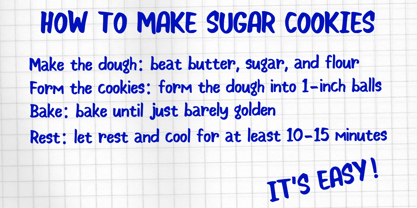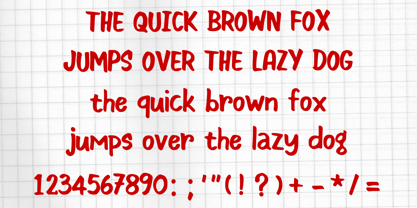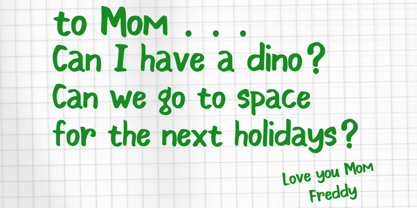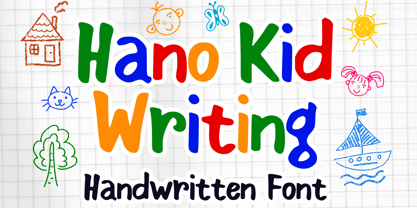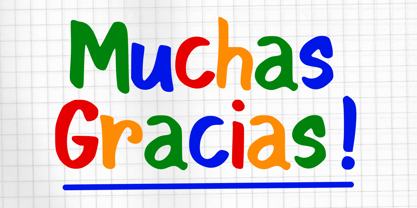
Hano Kid Writing
by Mvmet
The Hano Kid Writing Font Family was designed by Gabriel Valentinus and published by Mvmet. Hano Kid Writing contains 1 styles. More about this family
Introducing Hano Kid Writing – a charming handwritten marker font that radiates playfulness. This versatile typeface is perfect for adding a whimsical touch to your design projects. Whether you're creating eye-catching stickers, stunning t-shirt typography, or drafting captivating logos, Hano Kid Writing is your go-to choice. It's also ideal for designing attractive magazine and book covers, rendering engaging comics, or even for everyday typewriting. With its unique ability to infuse a cool aesthetic into any design, Hano Kid Writing is the magical ingredient you need to elevate your creativity to new heights.
Designers: Gabriel Valentinus
Foundry: Mvmet